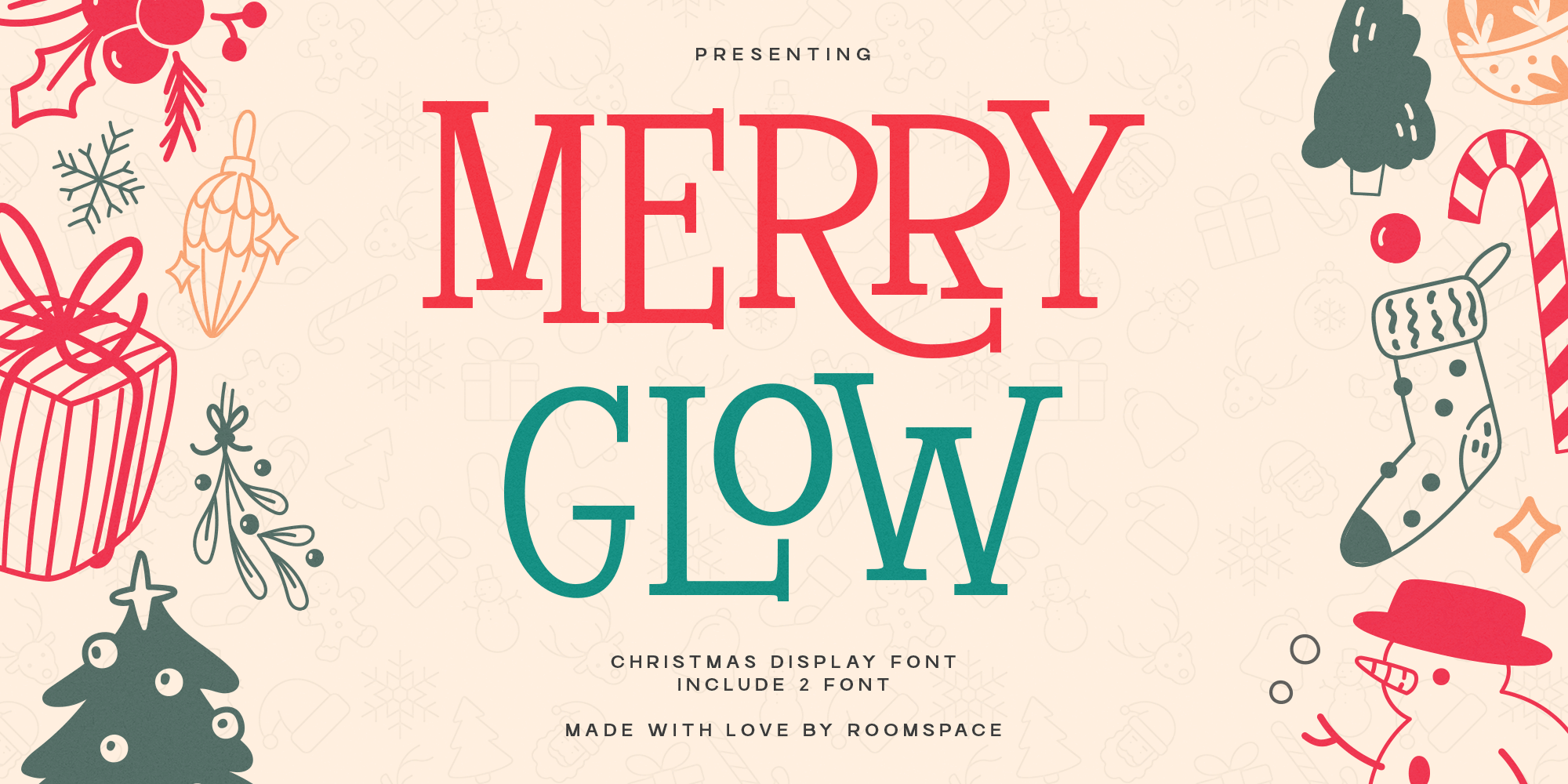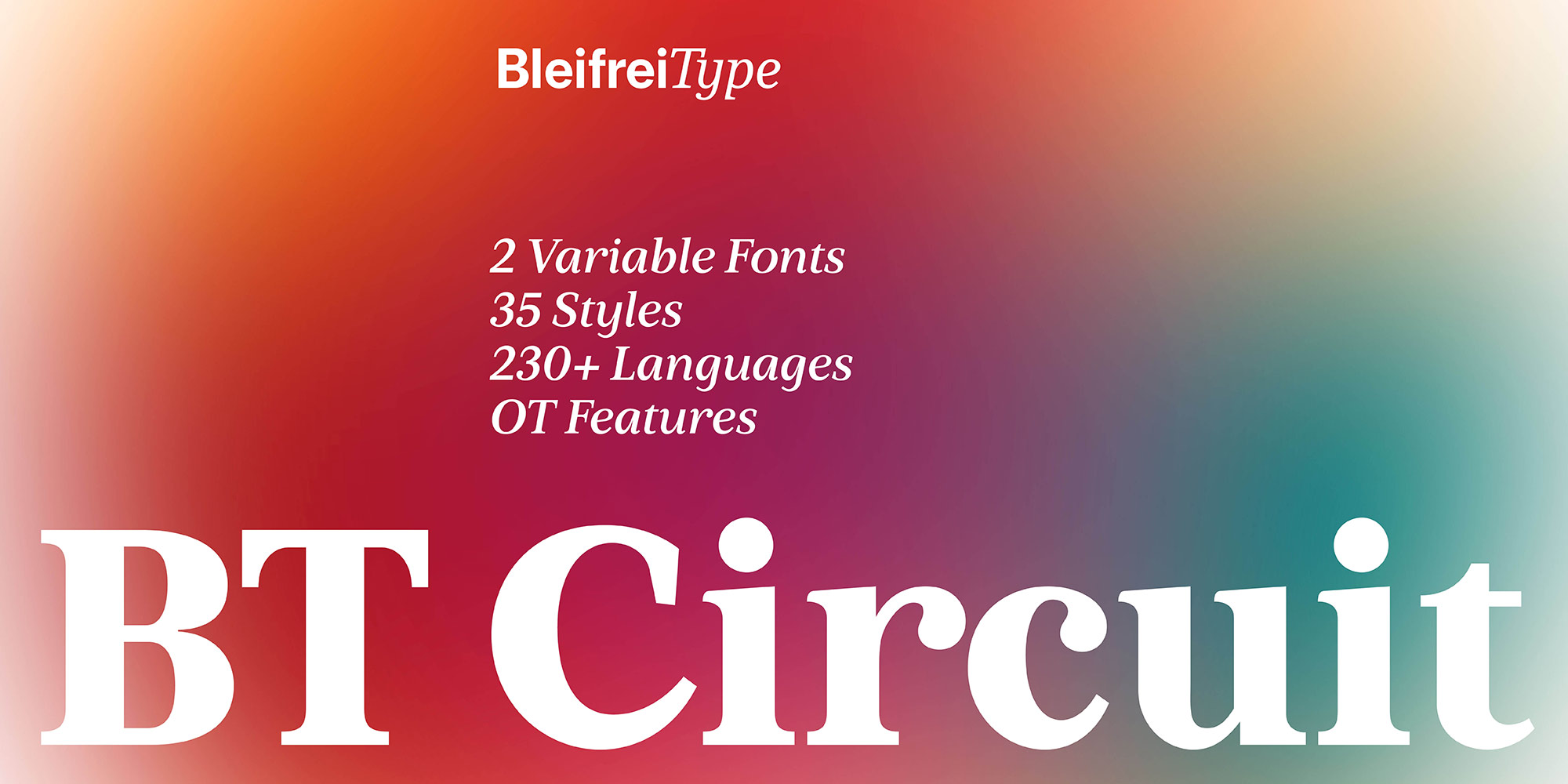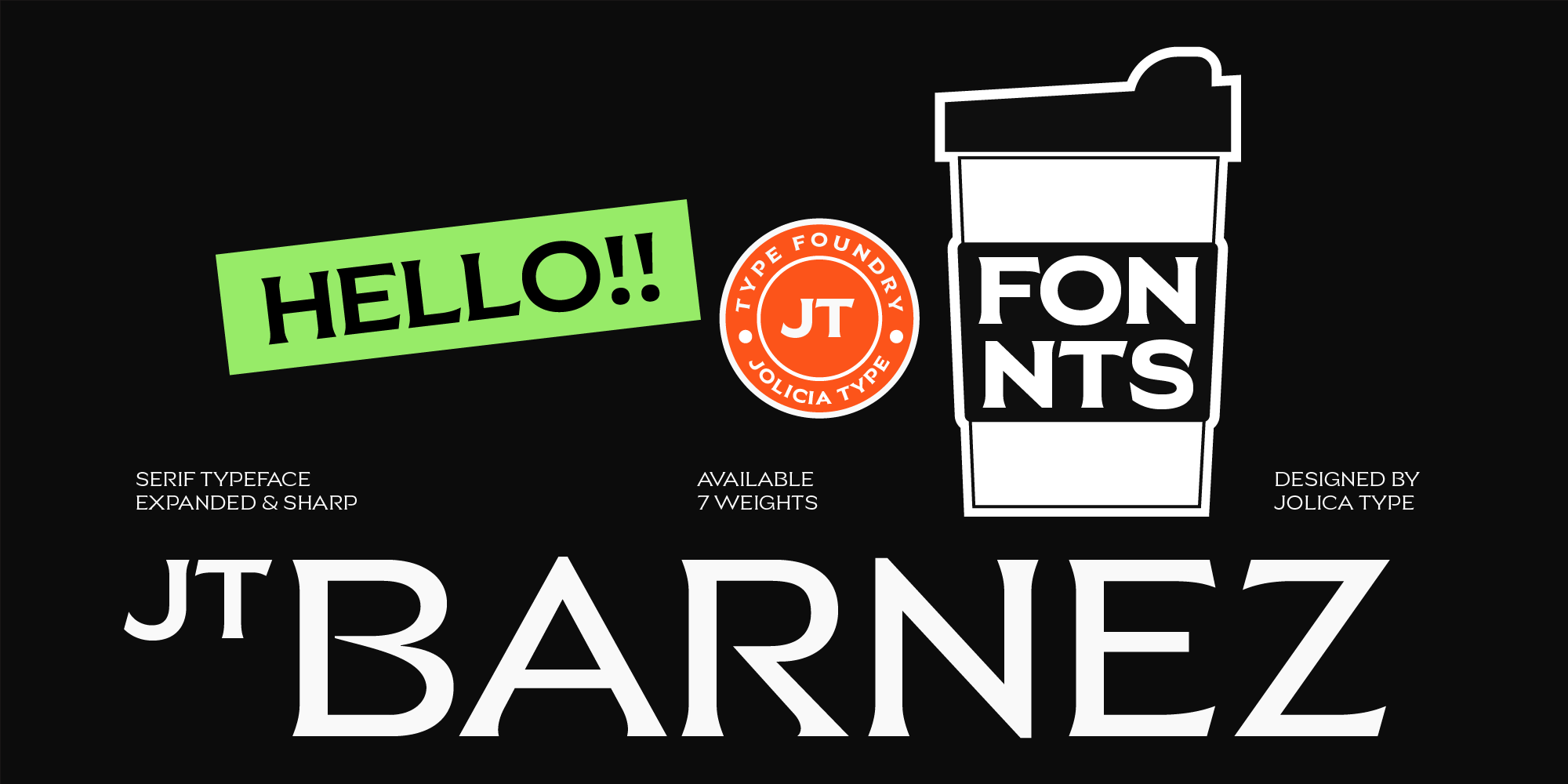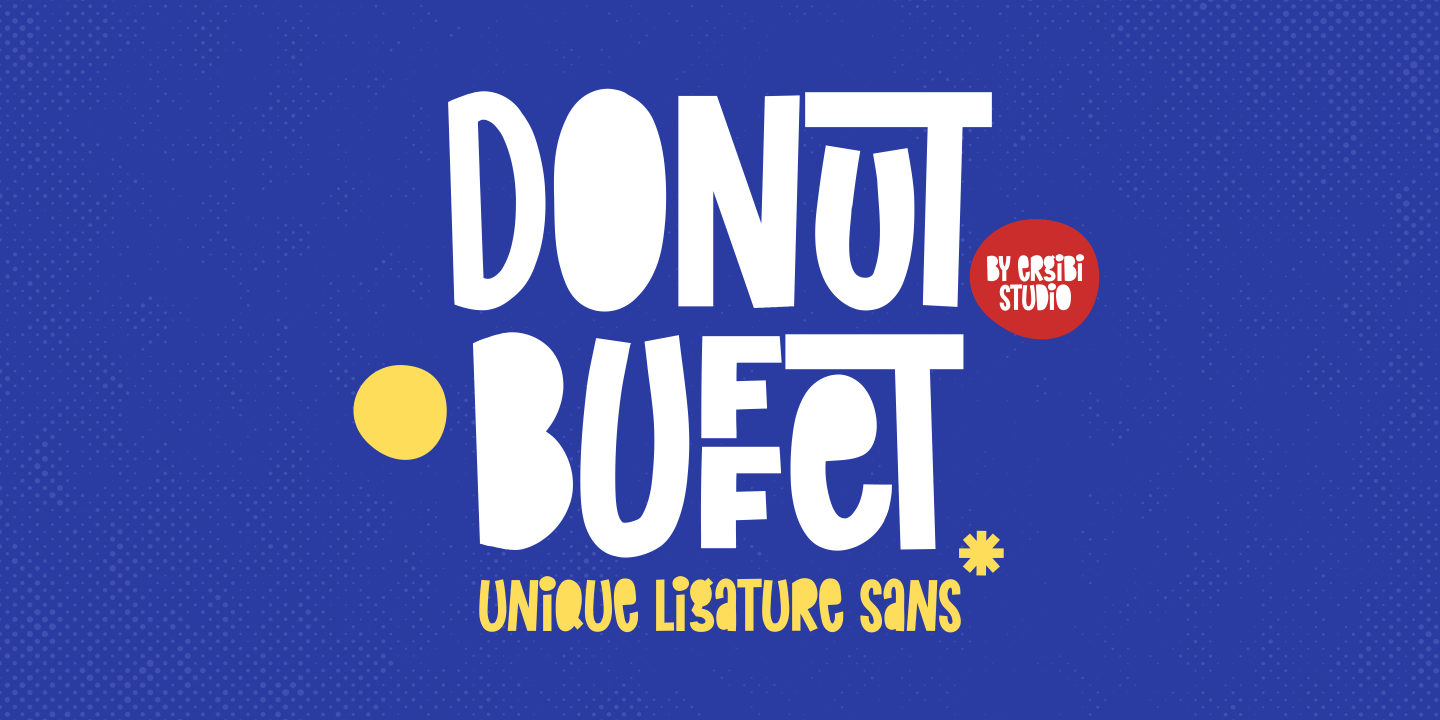
Merry Glow is a festive Christmas display serif that brings warm holiday cheer to every design. Featuring 2 fonts a classic serif and a decorative Christmas variant Merry Glow delivers joyful, vintage-inspired character perfect for seasonal branding and cozy creative projects. Crafted with playful curves and cheerful details, this font is ideal for holiday cards, Christmas packaging, invitations, social media designs, and festive merchandise. Merry Glow is festive, joyful, and charming. A Christmas display serif with warm curves, holiday elegance, and playful seasonal character. 2 fonts for $25 | |
Inspired by the flowing curves and natural forms found in nature, BT Circuit embodies the elegance and fluidity of its inspiration. The typeface is a serif font, which features soft, rounded edges und subtle curves mixed with hard corners. The characteristic raindrop shape that is to be found in some glyphs, gives the typeface a rhythmic and a recognizable personality. BT Circuit masters the balancing act between a traditional and a modern font by mixing proven and familiar shapes with unusual and newly interpreted characters. 35 fonts for $560 | |
Glatify - Modern Technology Font GLATIFY is a modern technology font designed for a futuristic and sleek aesthetic. Its sharp, geometric forms make it ideal for tech branding, digital interfaces, startups, and innovative design projects. Whether you're creating high-tech logos, UI/UX designs, or futuristic posters, GLATIFY offers clarity, precision, and a contemporary edge that elevates any project. Its versatile design ensures readability while maintaining a bold, professional appearance across digital and print mediums. 2 fonts for $19 | |
JT Barnez is a refined hybrid typeface that elegantly merges the subtle sophistication of a serif with the clarity of a clean sans-serif. With expanded proportions and precise, sharp detailing, it offers a bold visual presence while embodying a modern, minimal, and effortless aesthetic. The serif elements are intentionally subtle, almost invisible, creating a smooth fusion that feels contemporary, stylish, and forward-thinking. 7 fonts for $27 | |
Donut Buffet is a quirky, unique sans ugly font crafted for fun and expressive design projects. Perfect for logotypes, watermarks, posters, branding materials, promotions, product packaging, and more — this font brings an intentionally "ugly" charm to every letterform. Each character is designed with bold and smooth shapes to give your design a touch of chaos and personality. 1 font for $15 | |